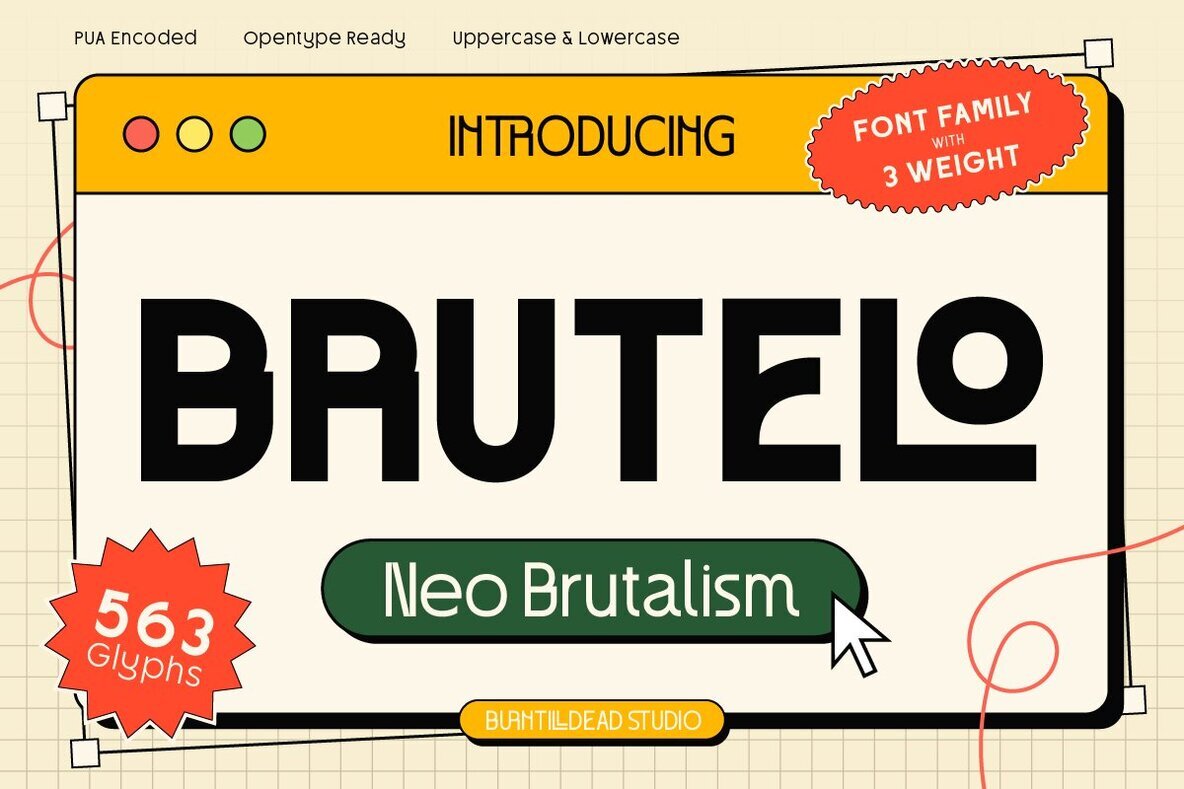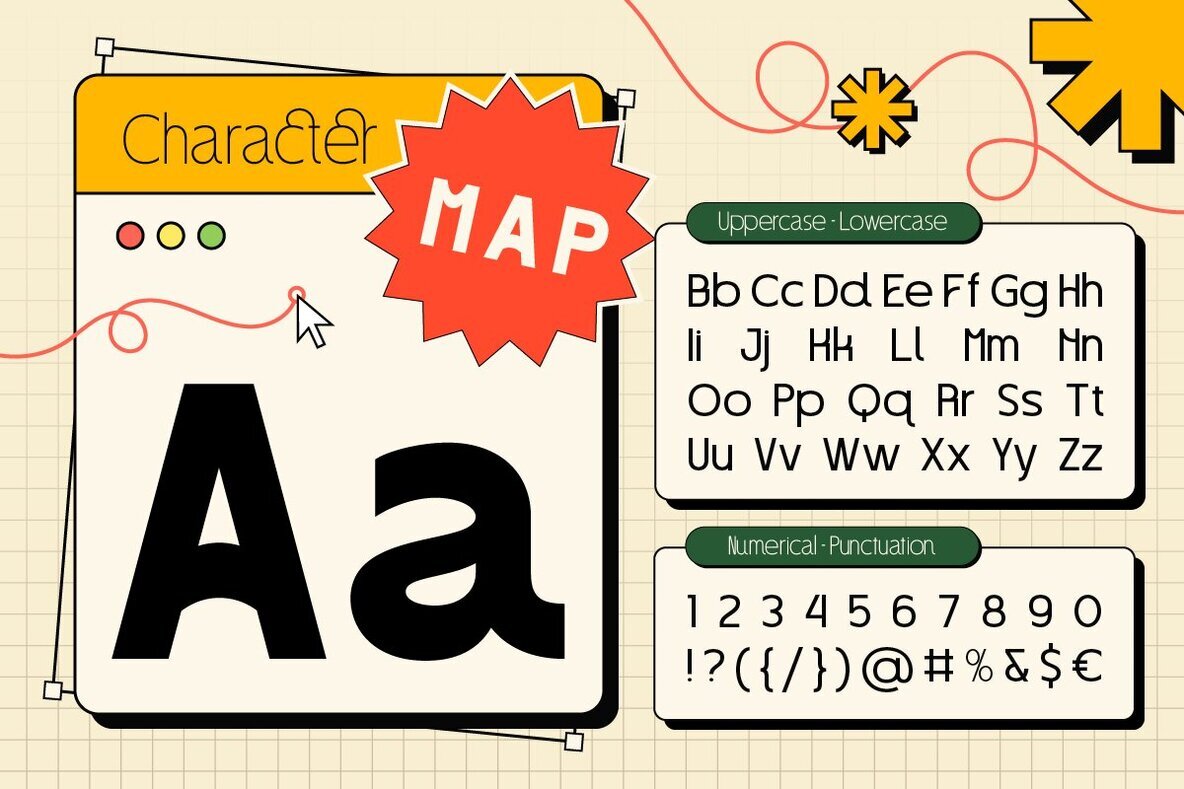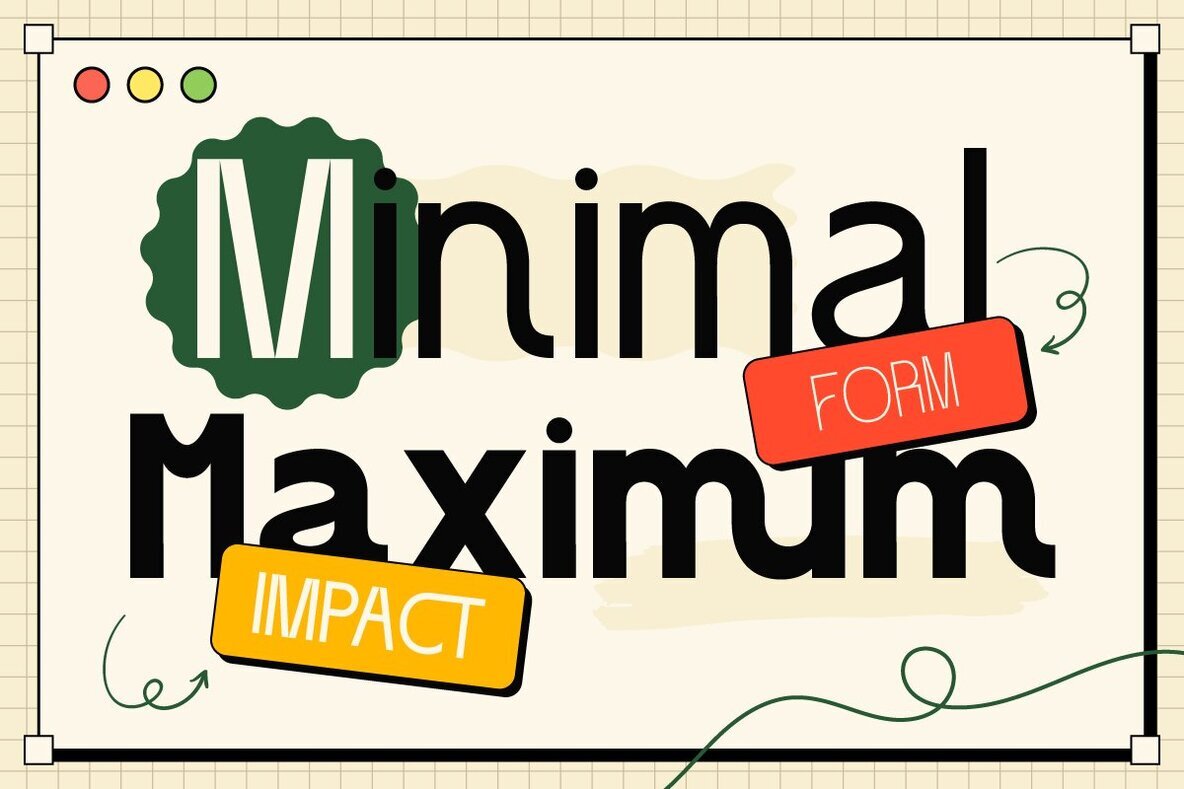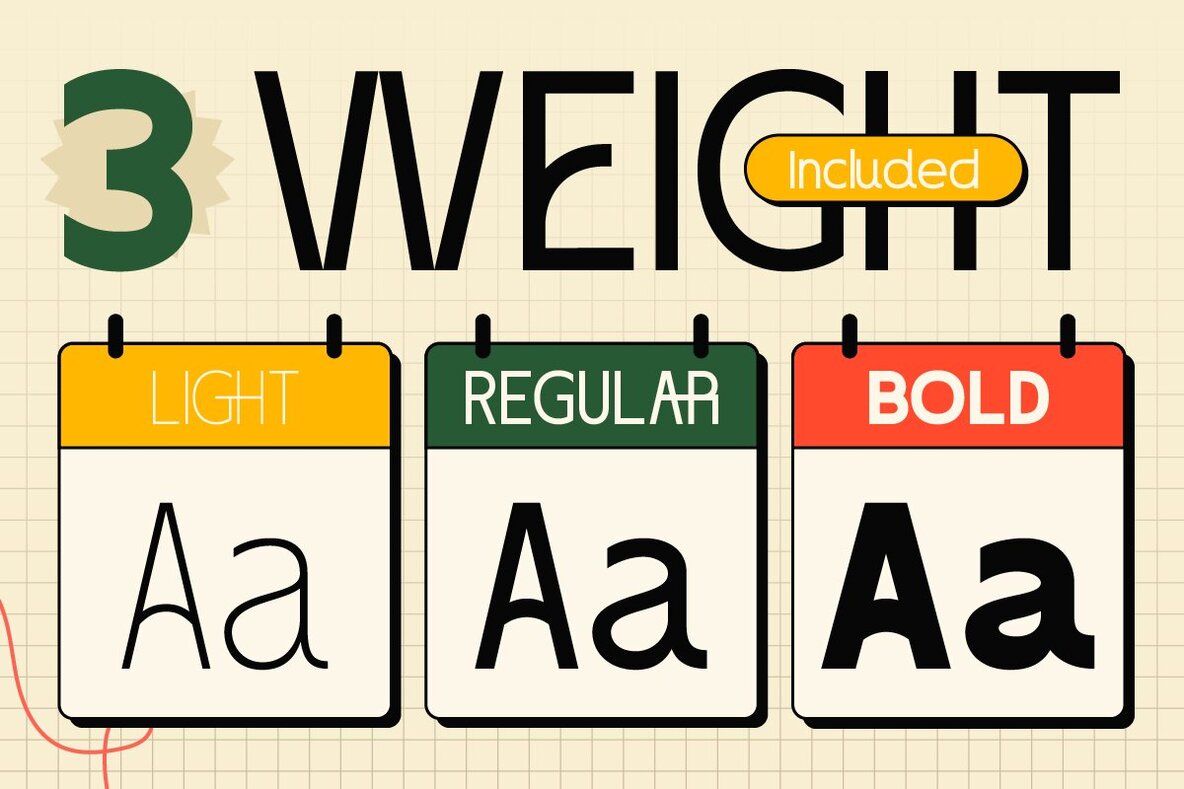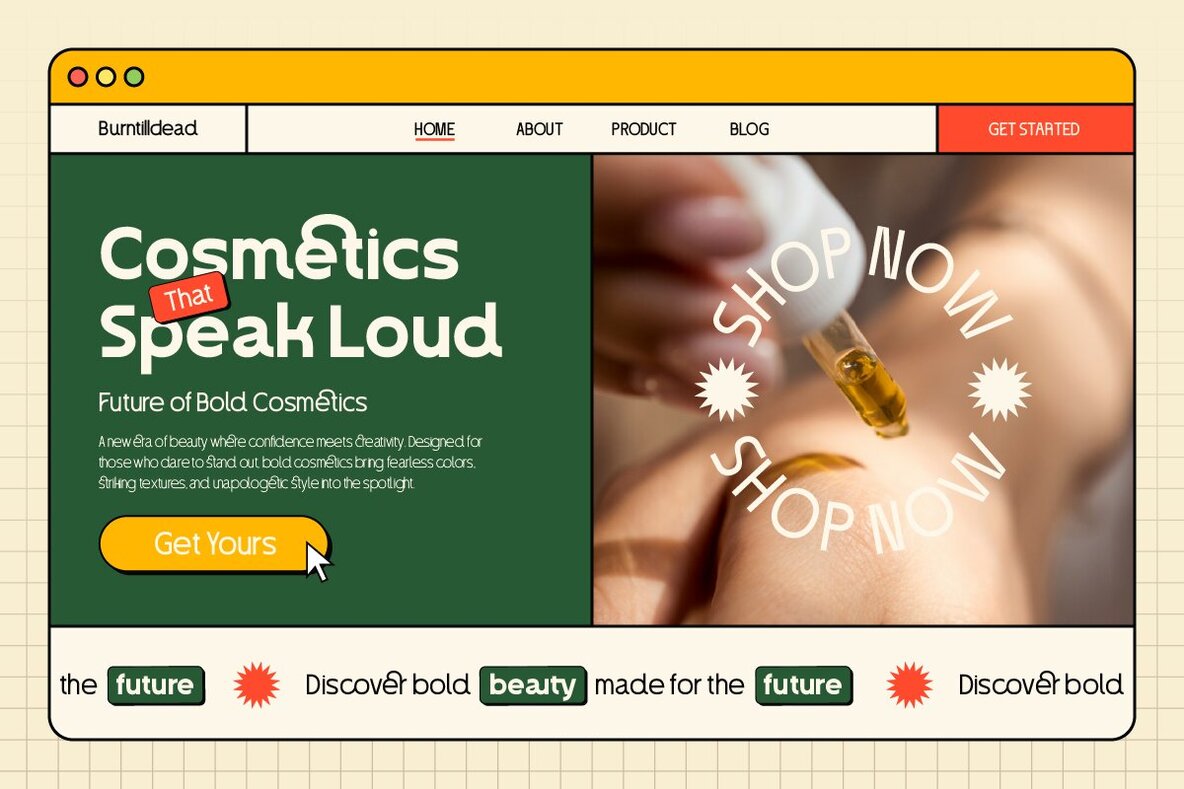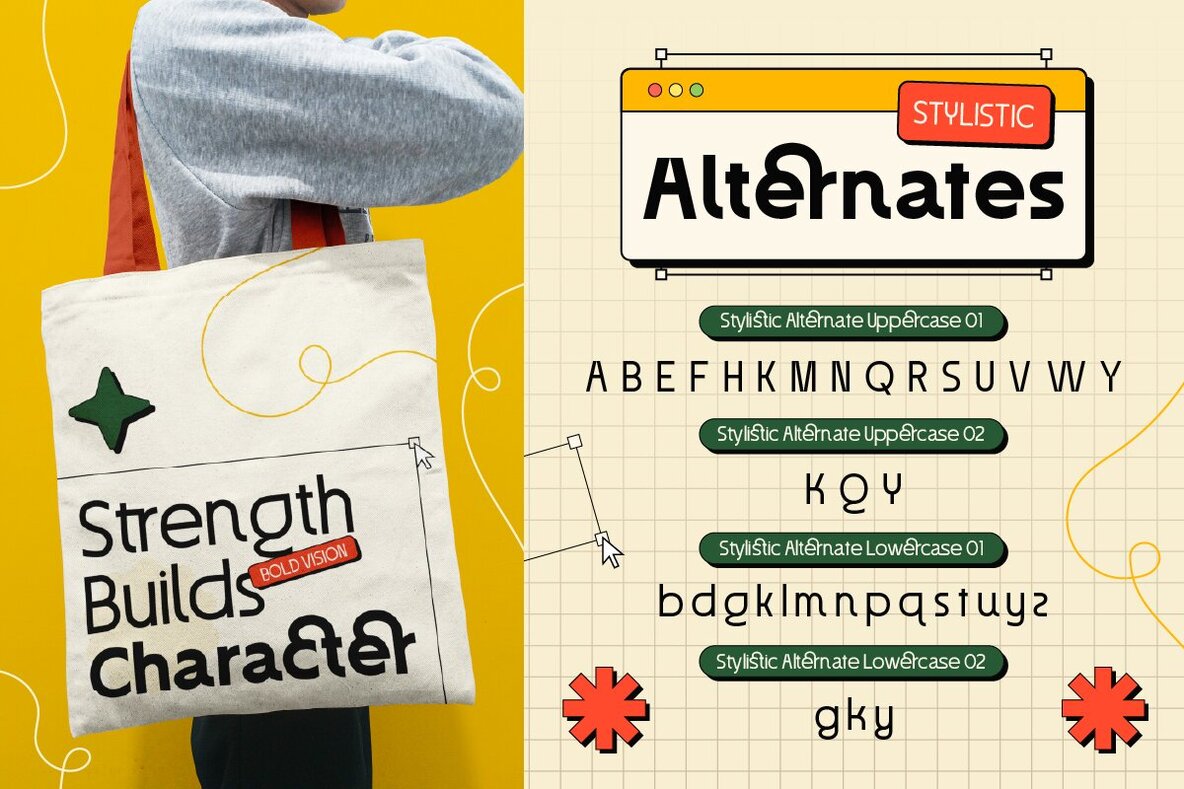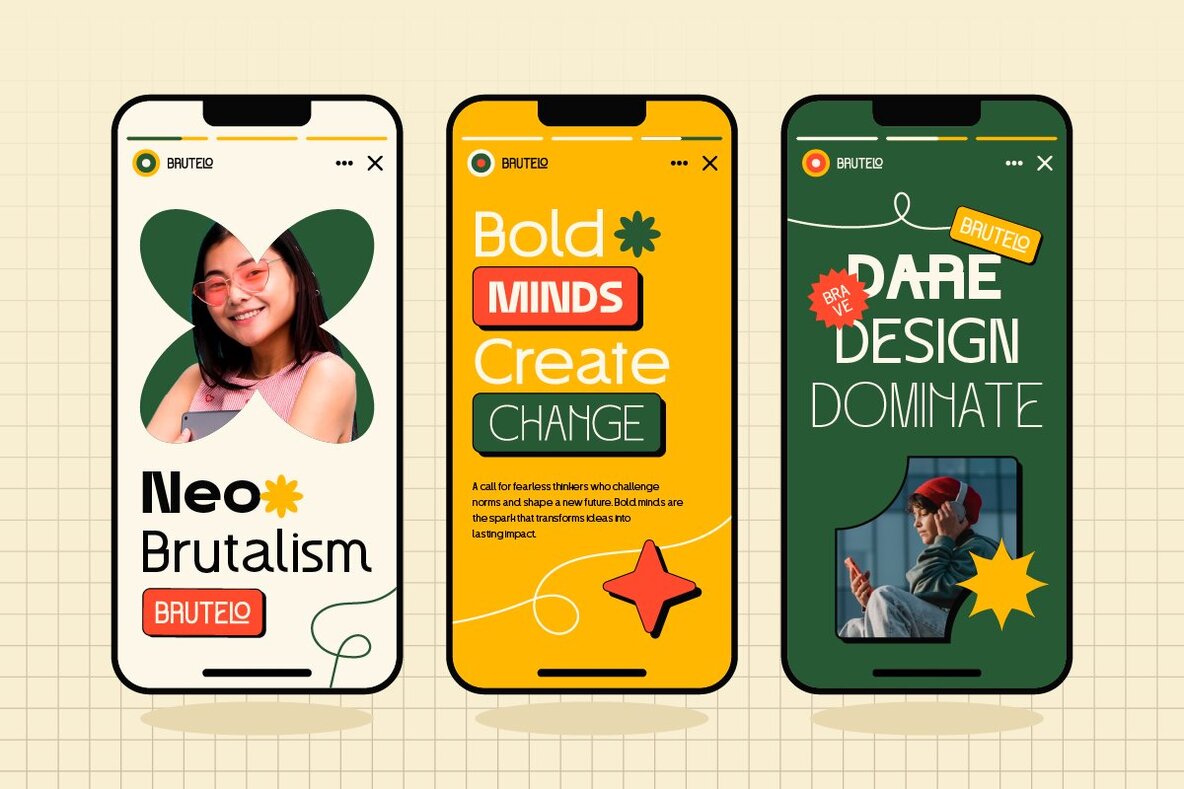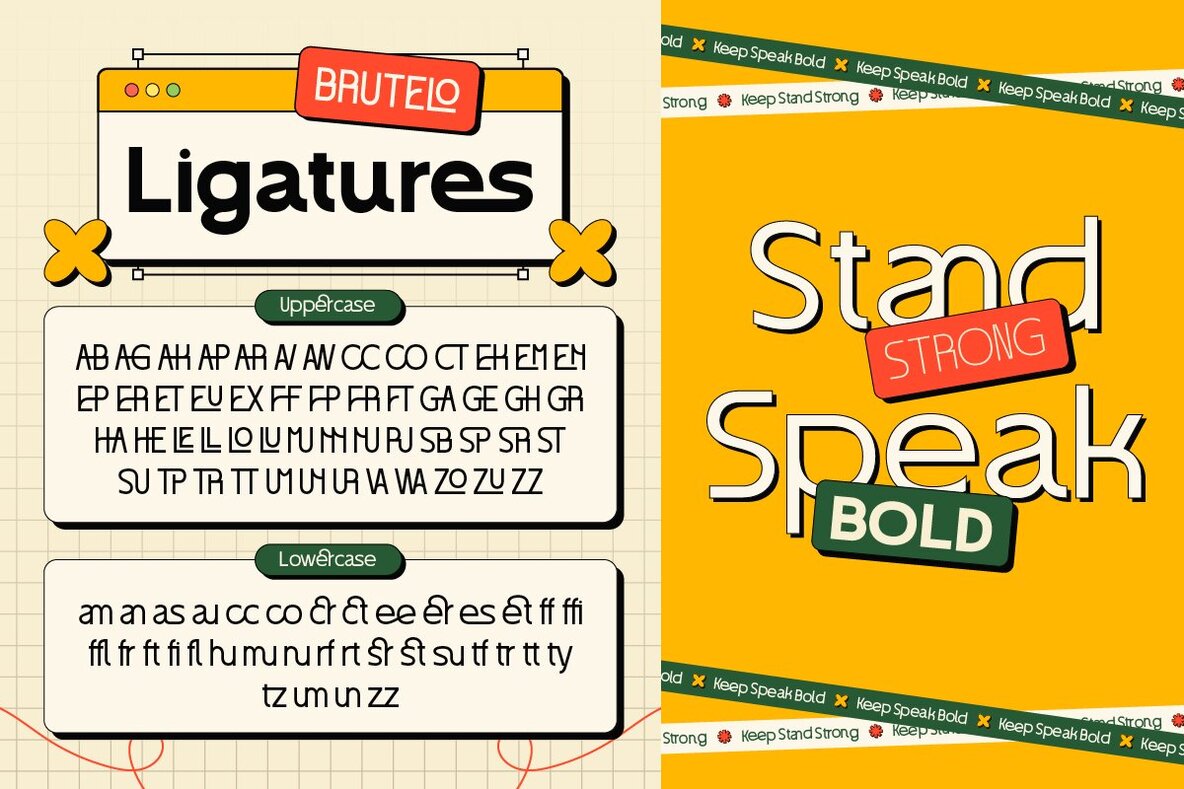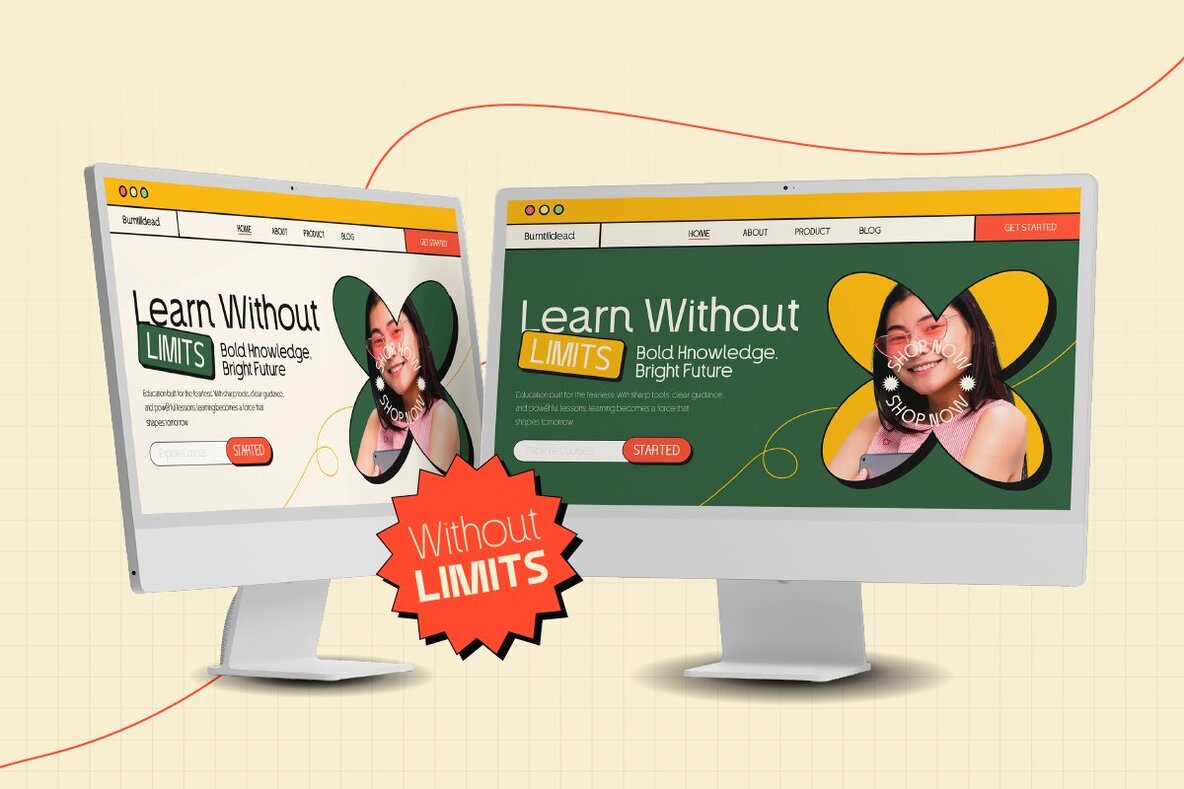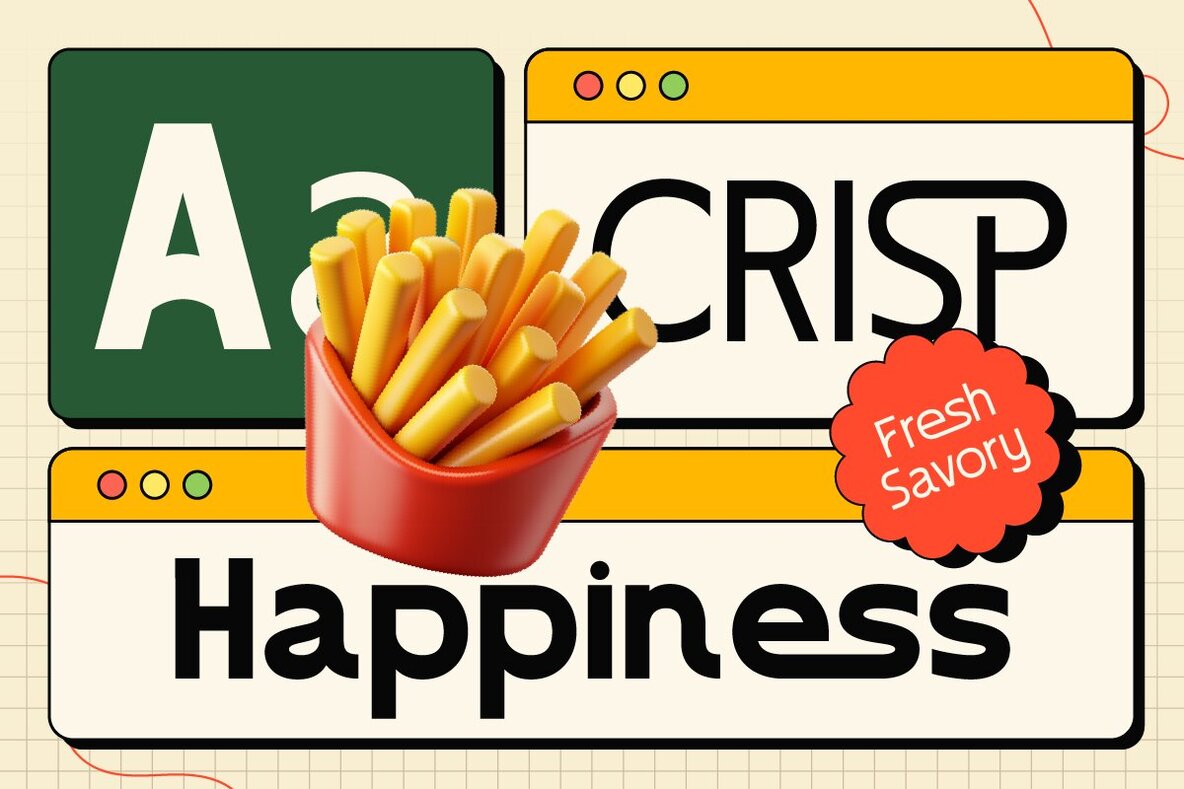
Brutelo Font
Brutelo Light
Brutelo Regular
Brutelo Bold
Brutelo introduces a striking approach to Neo Brutalism, merging strong geometric forms with subtle, quirky details. Its confident structure creates instant impact—ideal for posters, logos, and social media visuals that demand attention. Brutelo balances a clean look with distinctive personality, delivering clarity while allowing space for creative flair.Brutelo: Bold Neo Brutalist Typography
Available in three versatile weights—Light, Regular, and Bold—Brutelo adapts seamlessly to various moods and platforms. Its sharp construction and unique shapes make it a reliable choice for designers seeking visual strength without sacrificing playfulness.Font Features